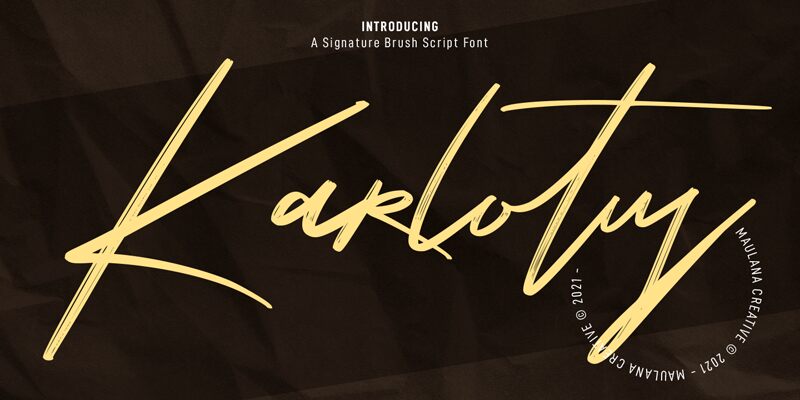
Introducing Karlotus, the signature handwritten font designed by Maulana Creative. With its light weight, this font brings a touch of elegance and class to any project. Perfect for branding, logos, invitations, and more, Karlotus adds a personal touch that sets your work apart from the rest. Whether you're creating wedding invitations or designing a new logo for your business, Karlotus delivers a unique look that captures attention and leaves a lasting impression. Try it out today and see the difference it makes in your designs!
Karlotus